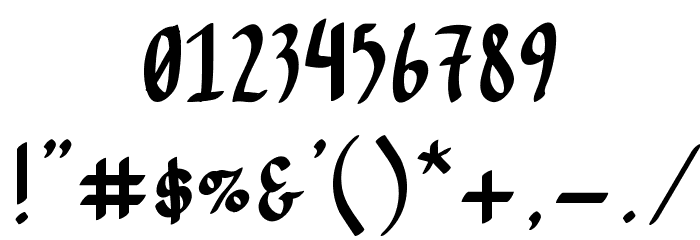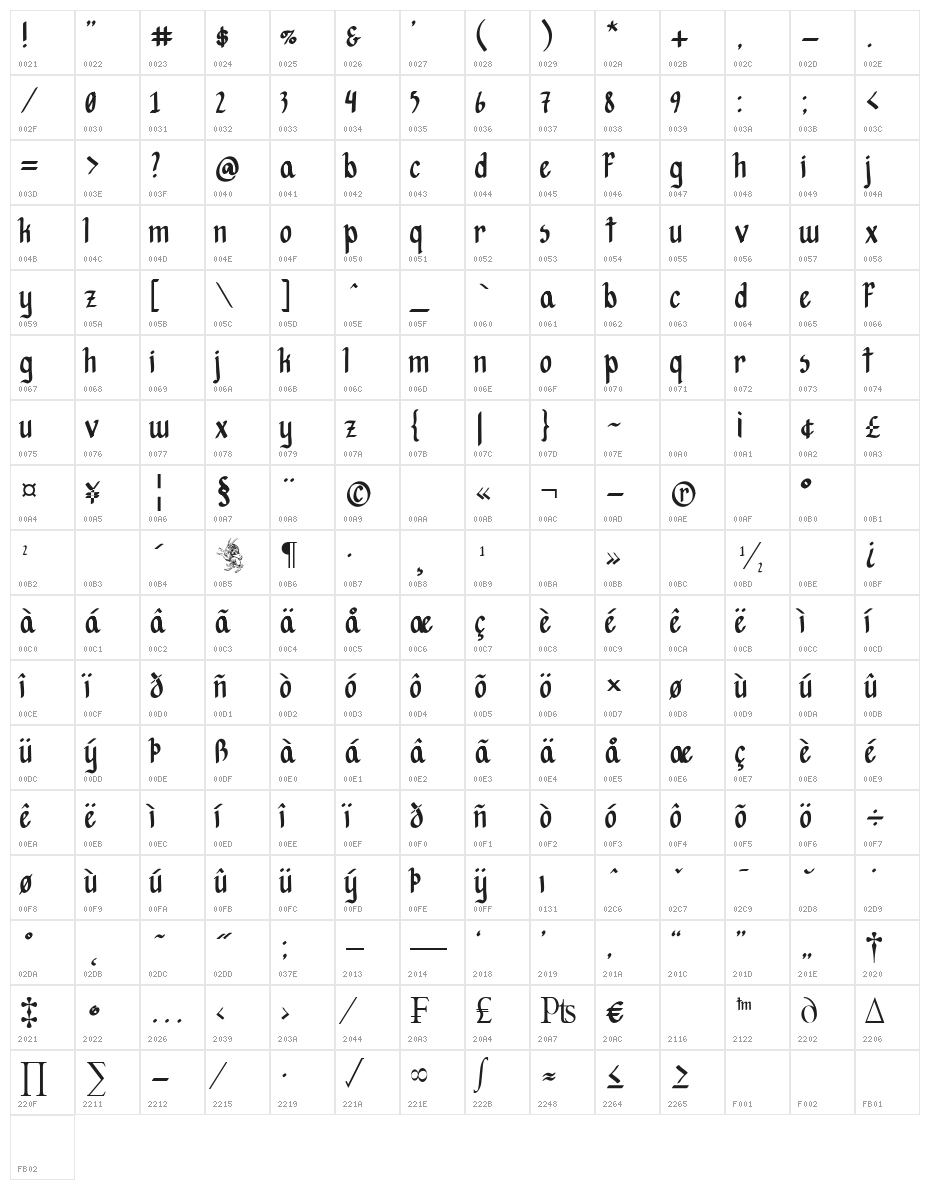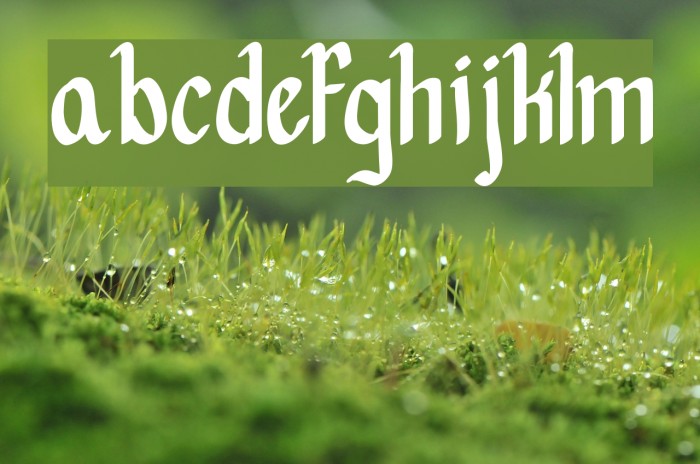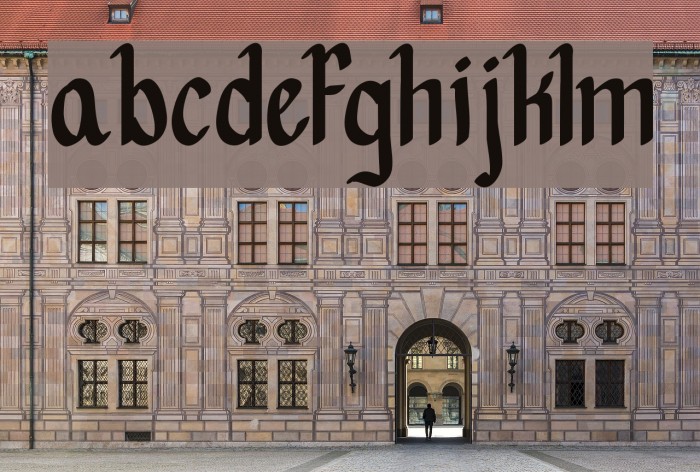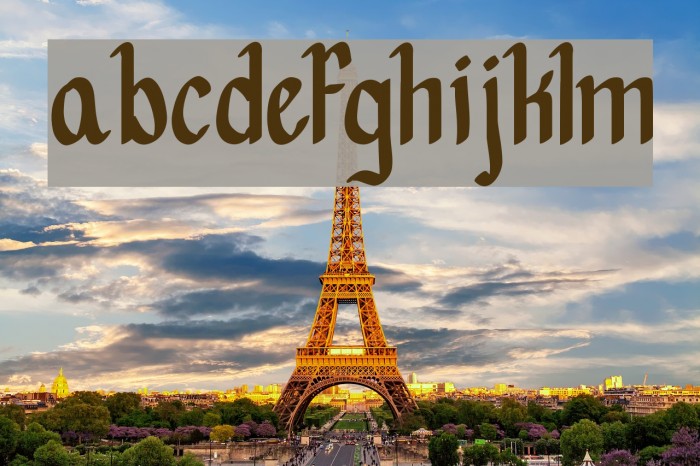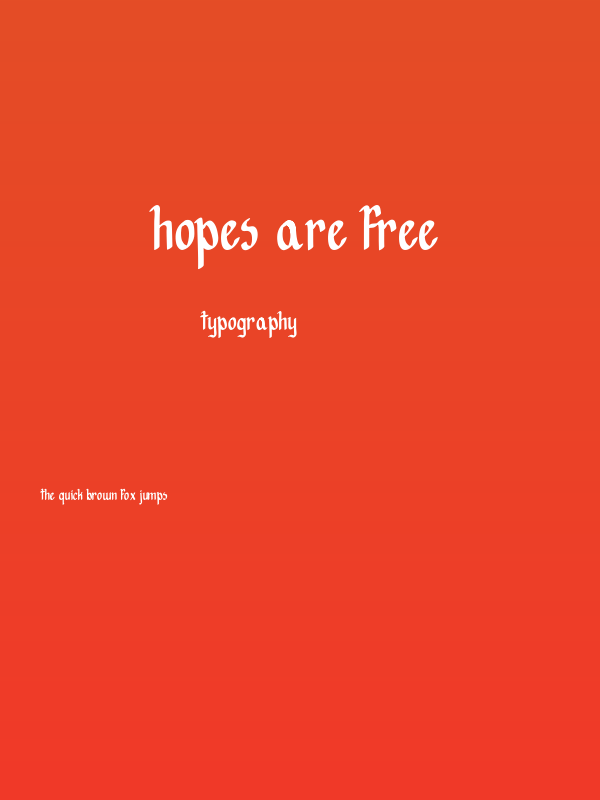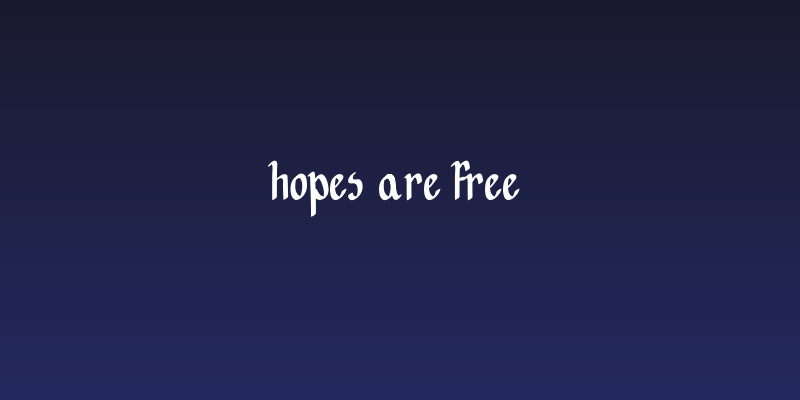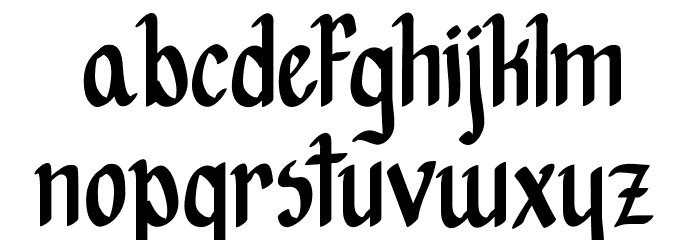
Hopes are free Font
Hopes are free Description
This font features a distinct and artistic style, characterized by its bold and dynamic strokes. The letters exhibit a unique flair with sharp, angular edges and a slight slant, giving it an energetic and expressive appearance. The uppercase and lowercase letters maintain a consistent style, with the lowercase letters mirroring the uppercase in form but with a more compact size. Numbers and special characters are designed to match the overall aesthetic, ensuring a cohesive look across all text. The font's design is reminiscent of traditional calligraphy, yet it incorporates modern elements that make it suitable for contemporary use. Its bold presence makes it ideal for creating eye-catching headlines or titles, while the intricate details add a touch of elegance and sophistication.